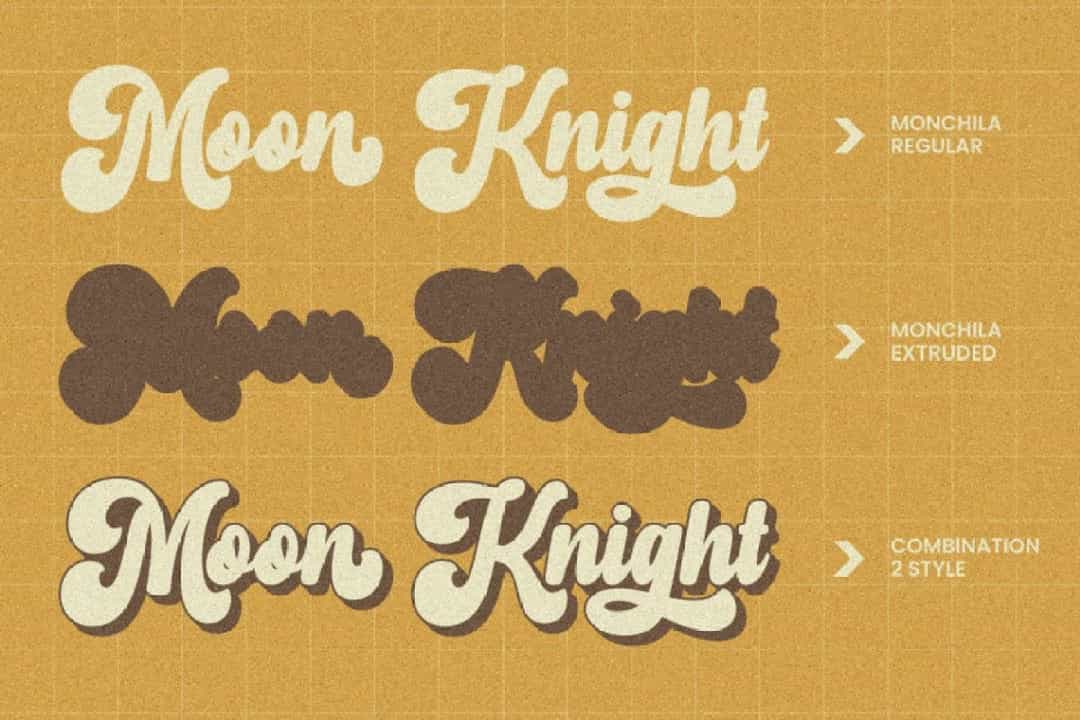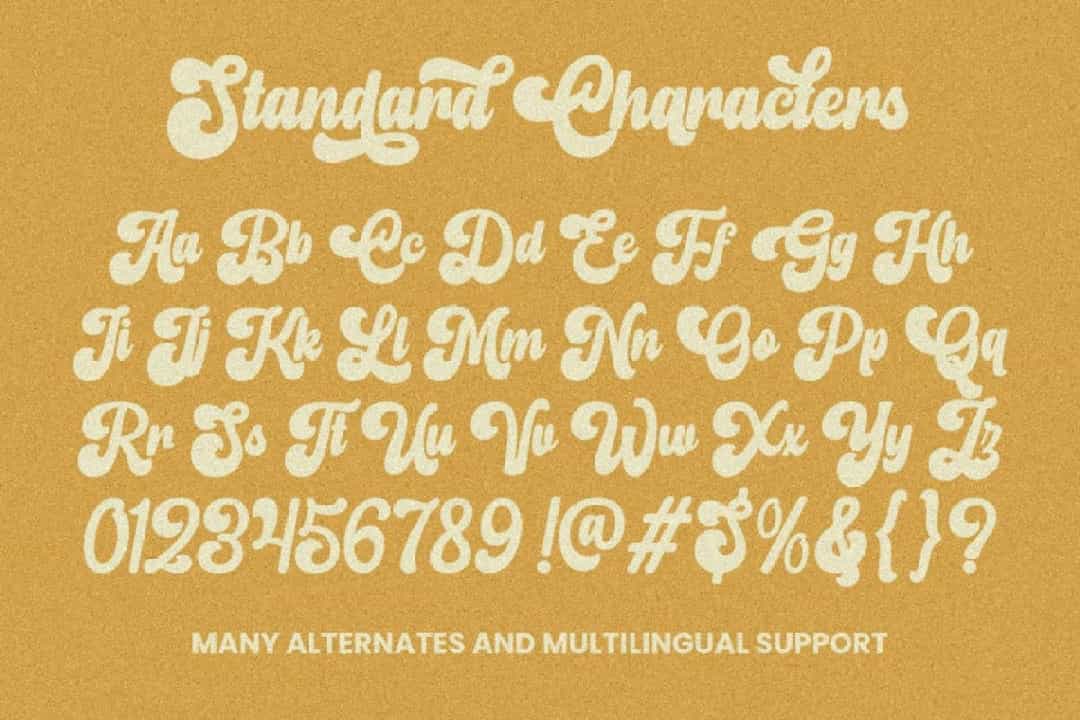
Monchila is an exciting retro-style display font ready to bring your designs to a whole new level. Utilize it on retro posters, stickers clothing or social media posts for maximum impact among your followers!